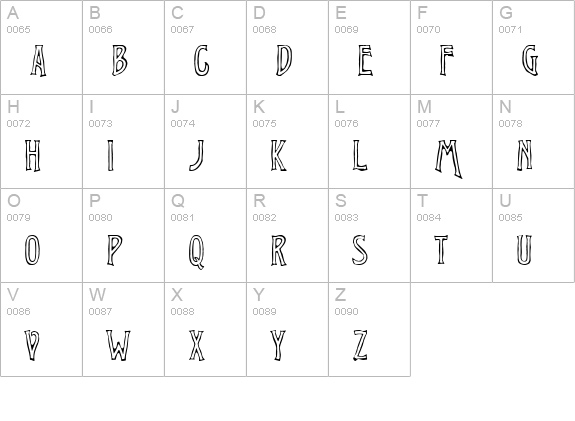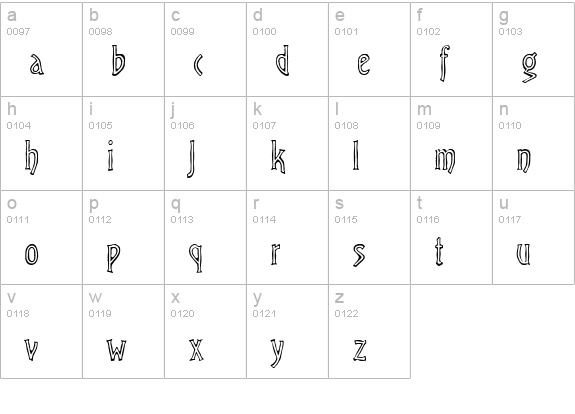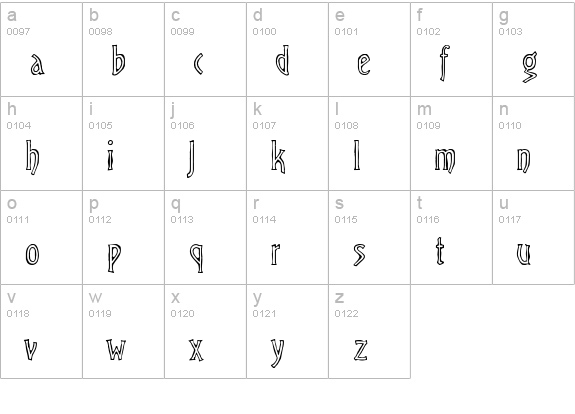
VirileOpen Font Details
VirileOpen is a bold and dynamic font that exudes strength and confidence. With its sharp lines and distinctive features, this typeface commands attention and makes a powerful statement. Perfect for headlines, posters, and branding materials, VirileOpen is sure to leave a lasting impression on your audience. What makes VirileOpen even more appealing is that it is available for free download at FontsMarket.com. This means you can easily access this striking font and use it in your projects without any cost. Don't miss out on the opportunity to enhance your designs with the impactful VirileOpen font - download it now and make your creations stand out!